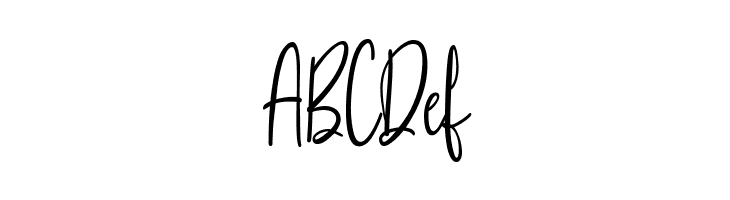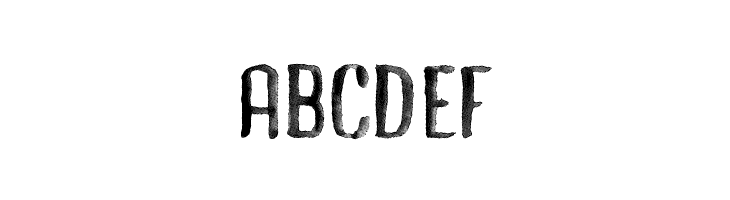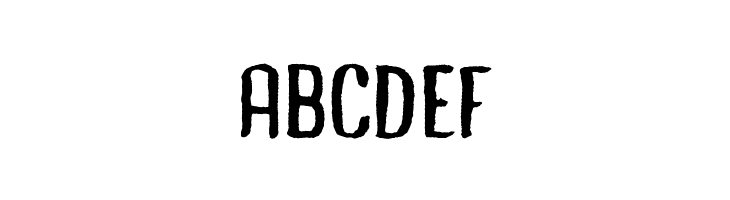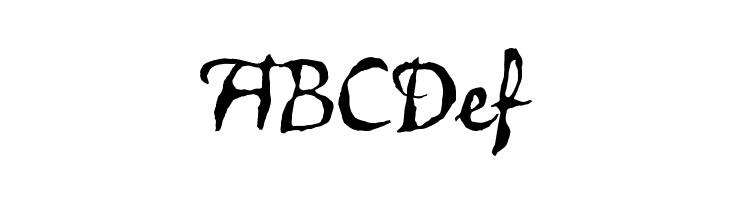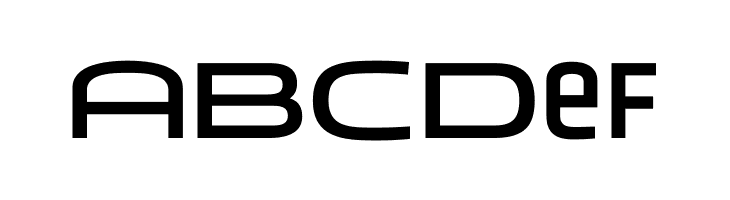
A playful, informal handwritten typeface with fluid strokes.
A hand-drawn, medieval-inspired font with dynamic strokes and organic shapes.
A bold, brush-textured font with a hand-painted look.
A bold, hand-drawn font with a rustic and organic feel.
A modern, geometric font with bold uppercase and consistent lowercase characters.